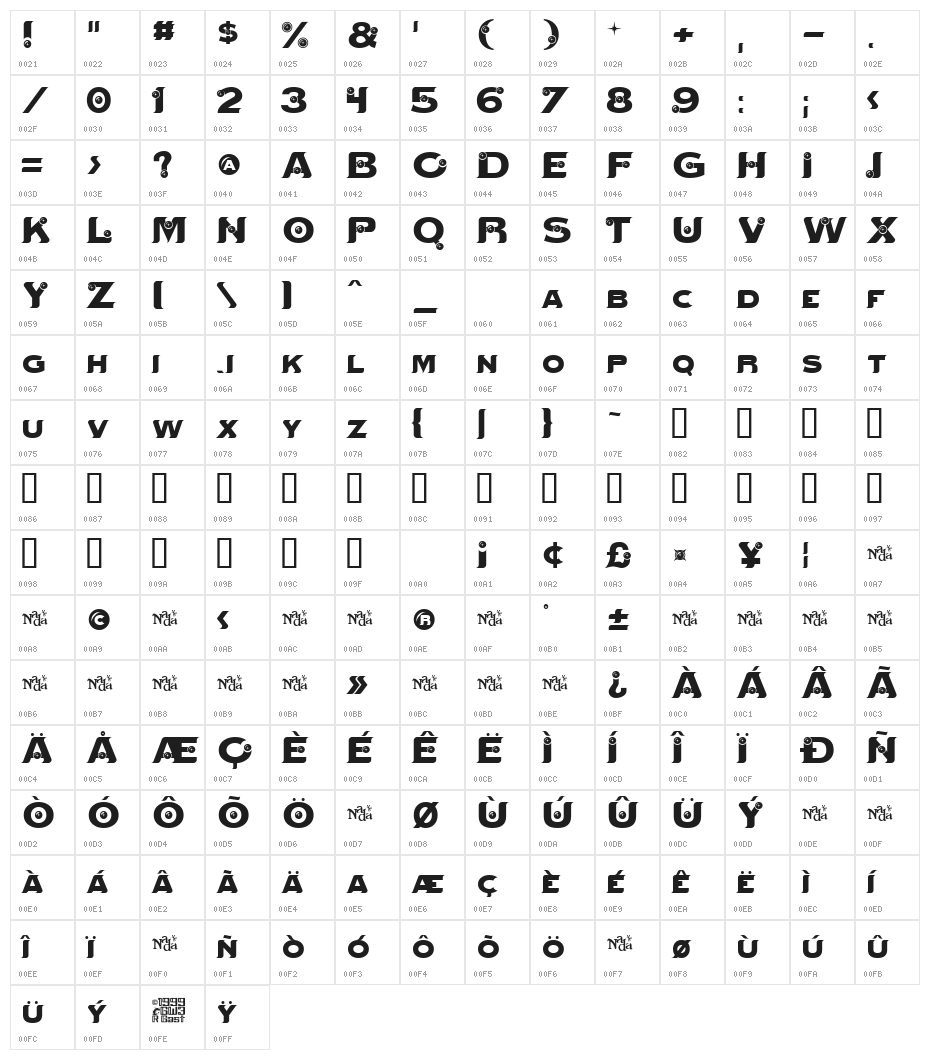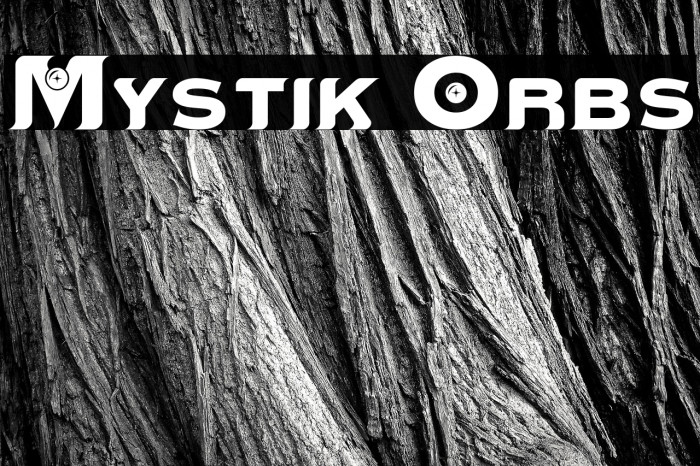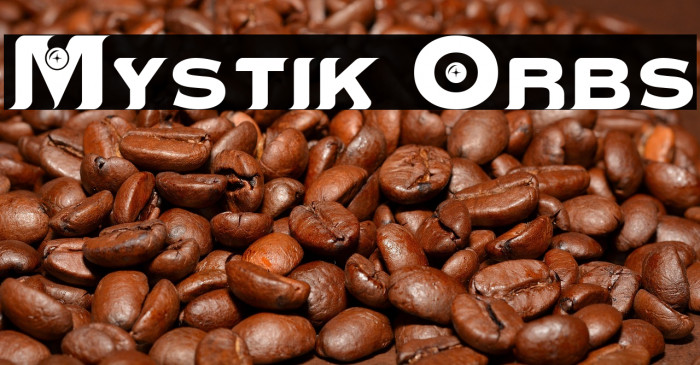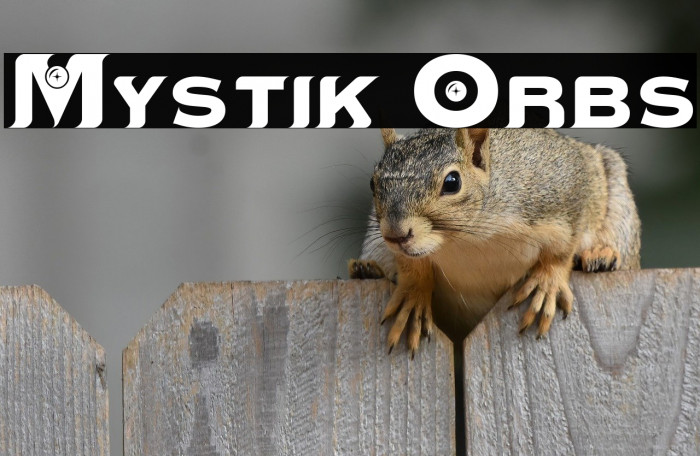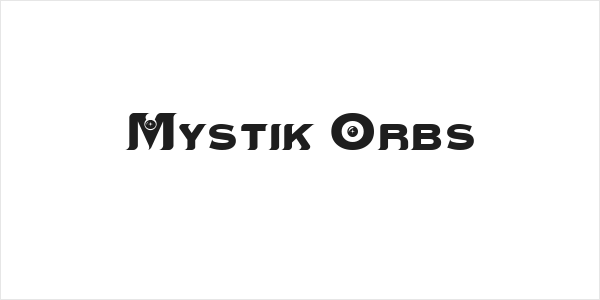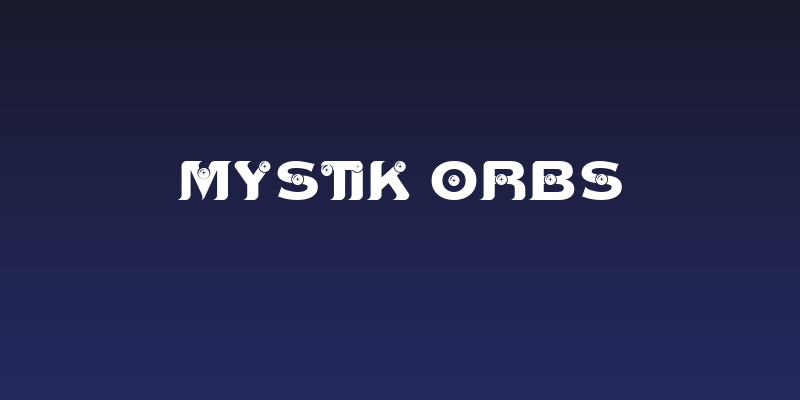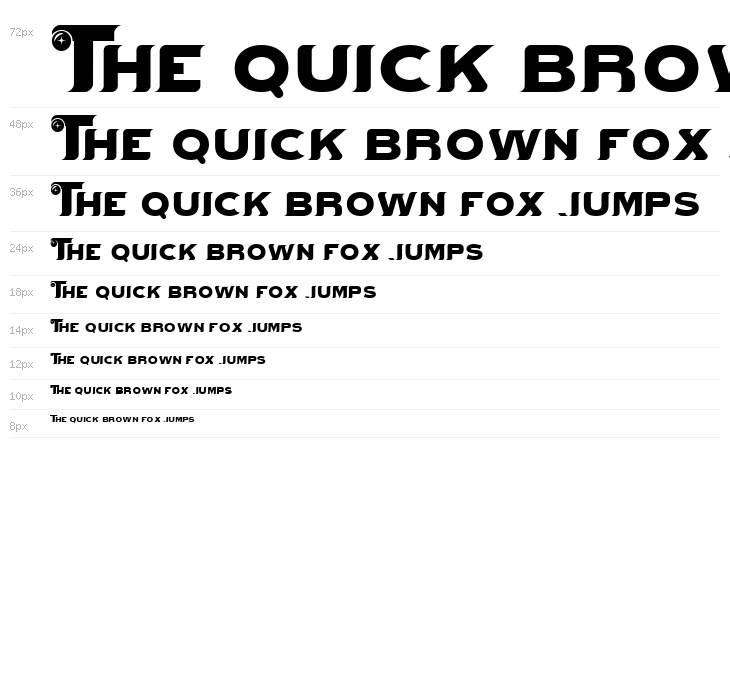
Mystik Orbs Font
Mystik Orbs Description
This font features a bold, decorative style with unique circular embellishments integrated into the characters. The uppercase and lowercase letters maintain a consistent weight, providing a strong visual impact. The numerals and special characters also incorporate these circular elements, enhancing the font's distinctiveness. The overall design is modern and eye-catching, making it suitable for creative and artistic projects. The font's geometric shapes and bold lines contribute to its striking appearance, while the added circular details give it a playful and whimsical touch.
| Proposed Projects | Ideal for posters, logos, album covers, and any project requiring a bold, artistic flair. |